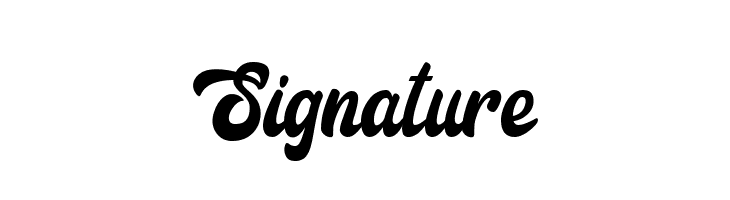
A cursive, handwritten-style font with elegant, flowing characters.
A charming and elegant handwritten script with fluid, connected letterforms.
A dynamic, cursive font with bold, sweeping strokes and elegant loops.
A modern, handwritten font with a fluid and elegant style.
An elegant, high-contrast script font with flowing, cursive letters and artistic flourishes.
A graceful and fluid script font with seamless letter connections.
A playful, romantic script font with tall, narrow letters and whimsical loops.
Elegant cursive script with a handwritten feel.